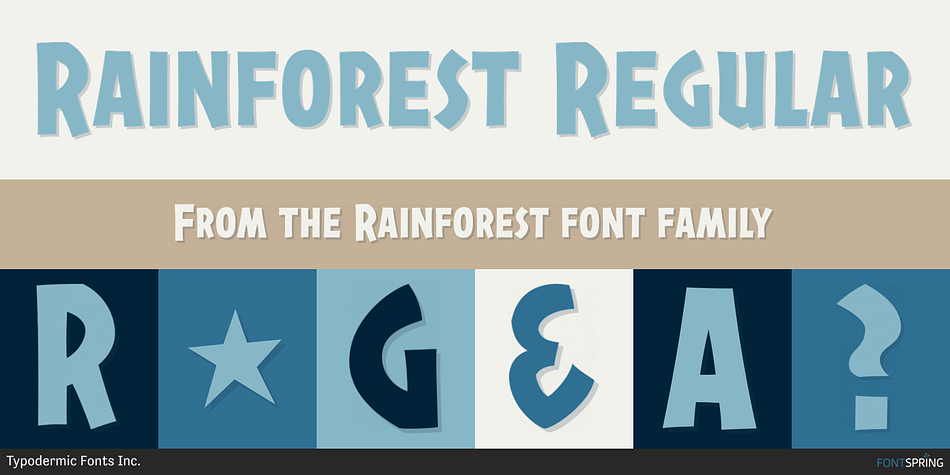
Rainforest Regular
Rainforest is an art deco and display sans font family. This typeface has three styles and was published by Typodermic Fonts Inc.
Picture this: you’re in the heart of a lush, vibrant rainforest. The leaves rustle in the breeze, and the vibrant colors of the flora and fauna surround you. That’s exactly the feeling you’ll get when you use Rainforest, our small caps display typeface inspired by the Jurassic Park logo.
Rainforest is a nod to the classic typefaces of the early 20th century, like Rudolph Koch’s Neuland and Monotype’s Othello. These fonts captured the spirit of the Art & Crafts movement with their woodcut prints, and they were particularly popular in themes depicting jungles and tropical islands.
But Rainforest takes that classic style to the next level with its sleek and modern design. The typeface can be used in a variety of ways: plain, outlined, or as a separate thin-line layer. It’s versatile, stylish, and sophisticated—perfect for any project that needs a touch of class.
Whether you’re designing a poster for a tropical vacation or creating an eye-catching logo, Rainforest will make your work stand out from the crowd. Its candid, natural style will transport you straight to the heart of the rainforest—all while maintaining an air of elegance and sophistication. Give Rainforest a try today and see the difference for yourself!